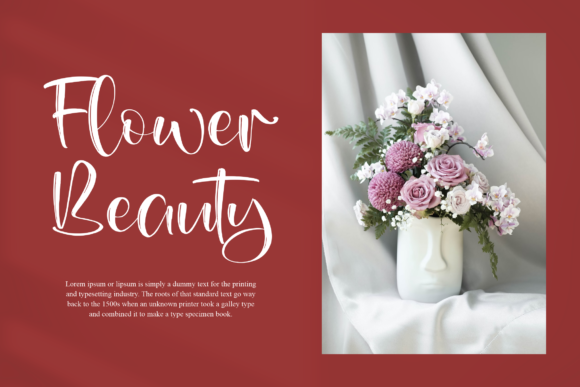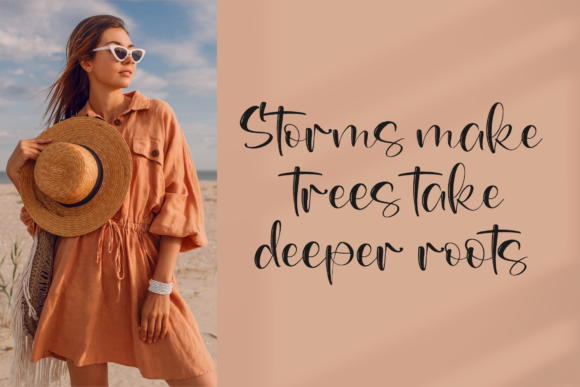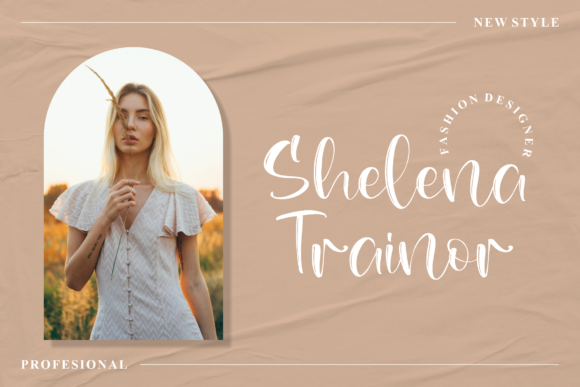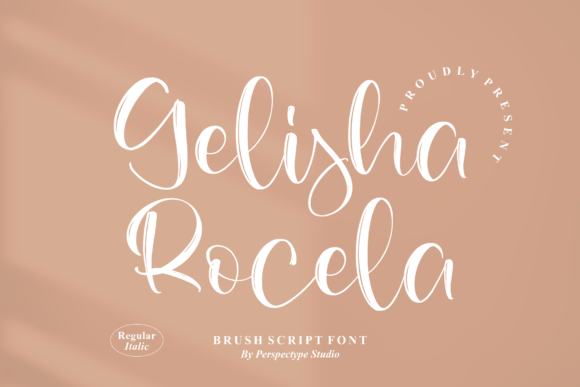
Introduction to Gelisha Rocela Font
Gelisha Rocela is a stylish and dainty script font.
It is suitable for any projects such as: logos, branding projects, label, photography, watermark, special events, and all your other lovely projects that need a beautiful script taste .
Key Features of Gelisha Rocela Font